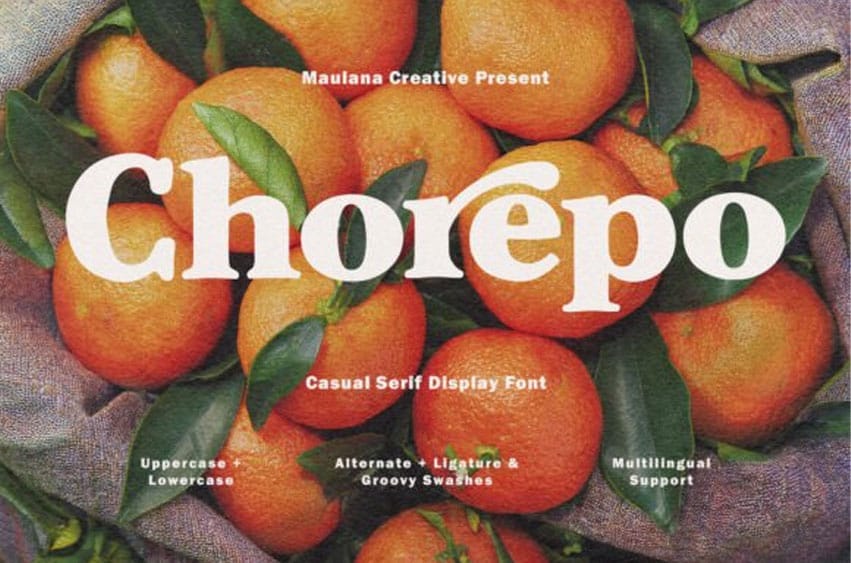
Chorepo Font is a bold, expressive casual serif display font that blends retro charm with modern playfulness.
Featuring thick, punchy strokes and unique “groovy swashes,” this typeface is designed to stand out in branding, packaging, and headlines.